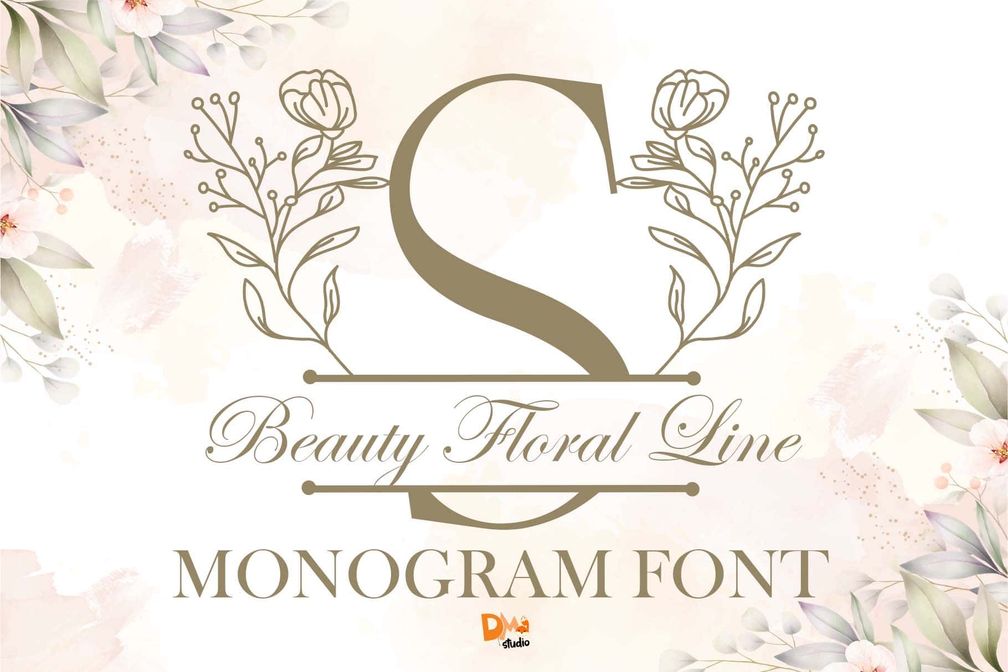
Beauty Floral Line Monogram
Beauty Floral Line Monogram – Elegant Botanical Line Art Monogram Font
Beauty Floral Line Monogram is a refined and artistic monogram font that blends elegant letterforms with delicate botanical line art. Each character is beautifully accented with hand-drawn floral elements, creating a timeless and graceful aesthetic. Perfect for wedding invitations, luxury branding, personalized stationery, and feminine design projects, this font offers sophistication with a touch of natural beauty.
• Botanical Line Art Details – Intricate floral line illustrations enhance each monogram letter.
• Minimalist Yet Decorative – Clean lines with detailed embellishments offer a modern yet timeless feel.